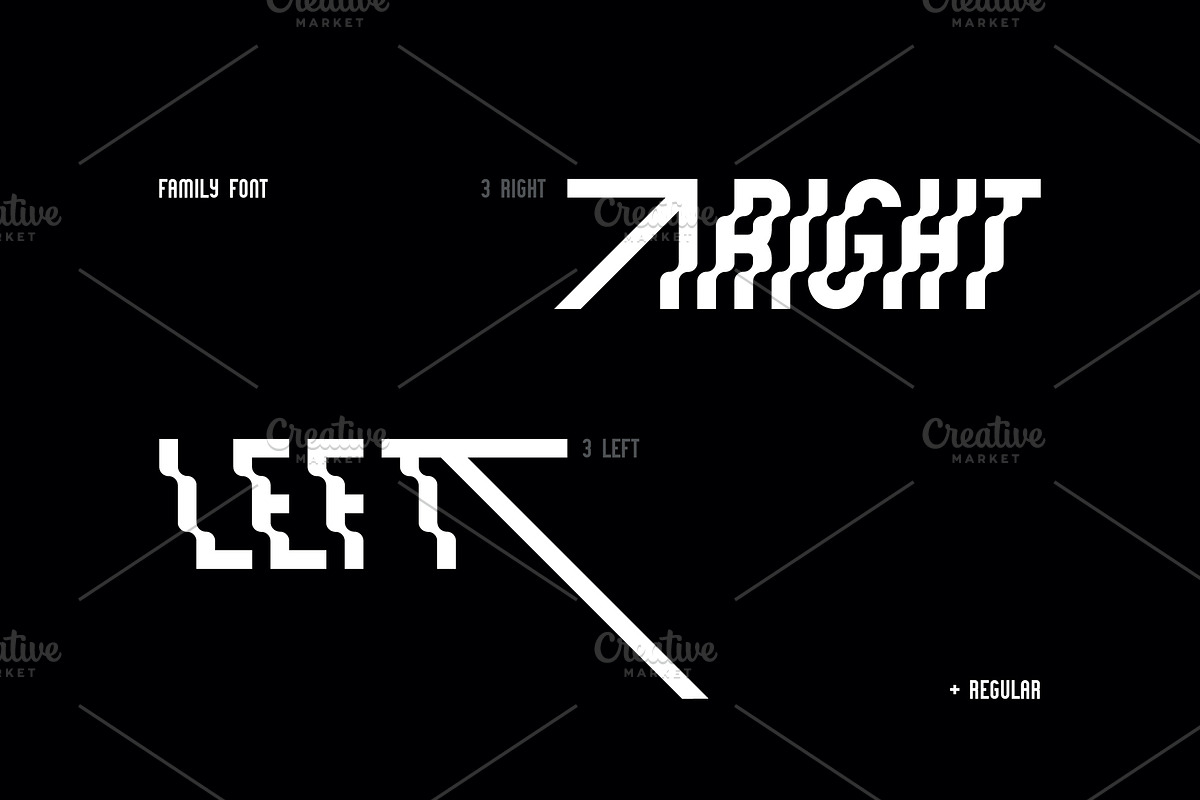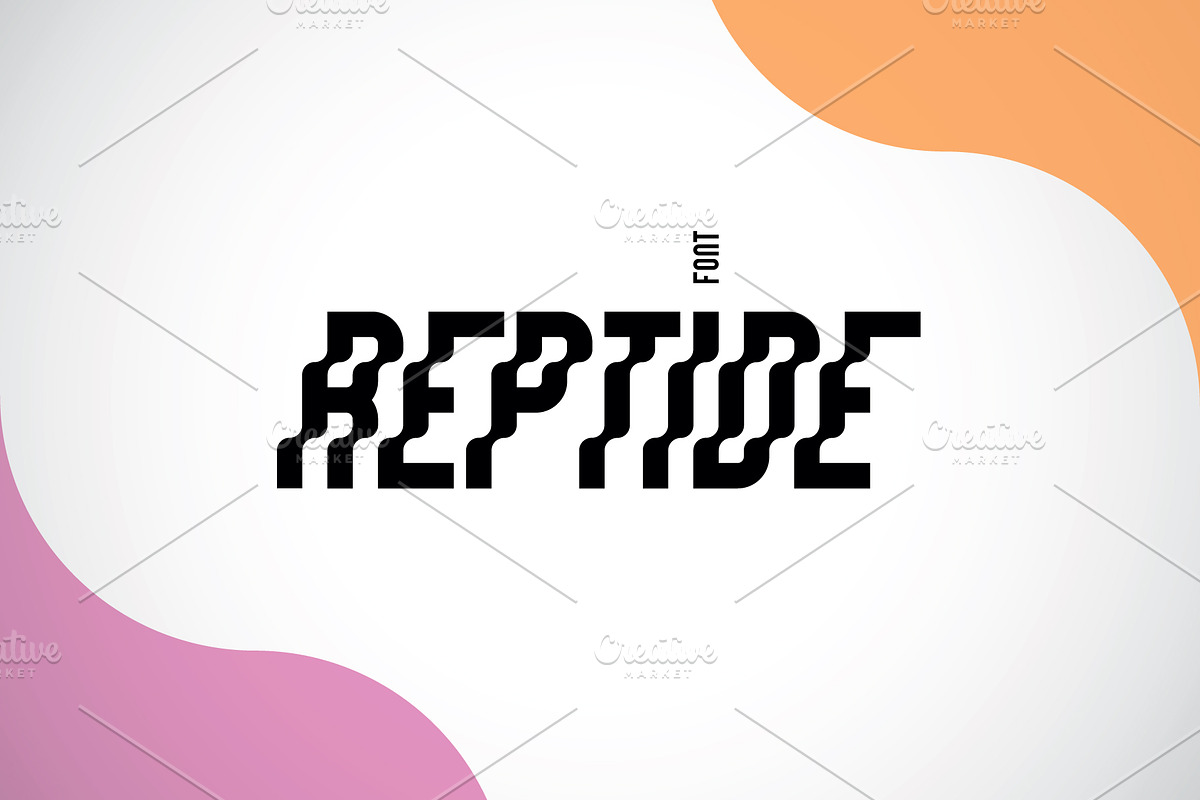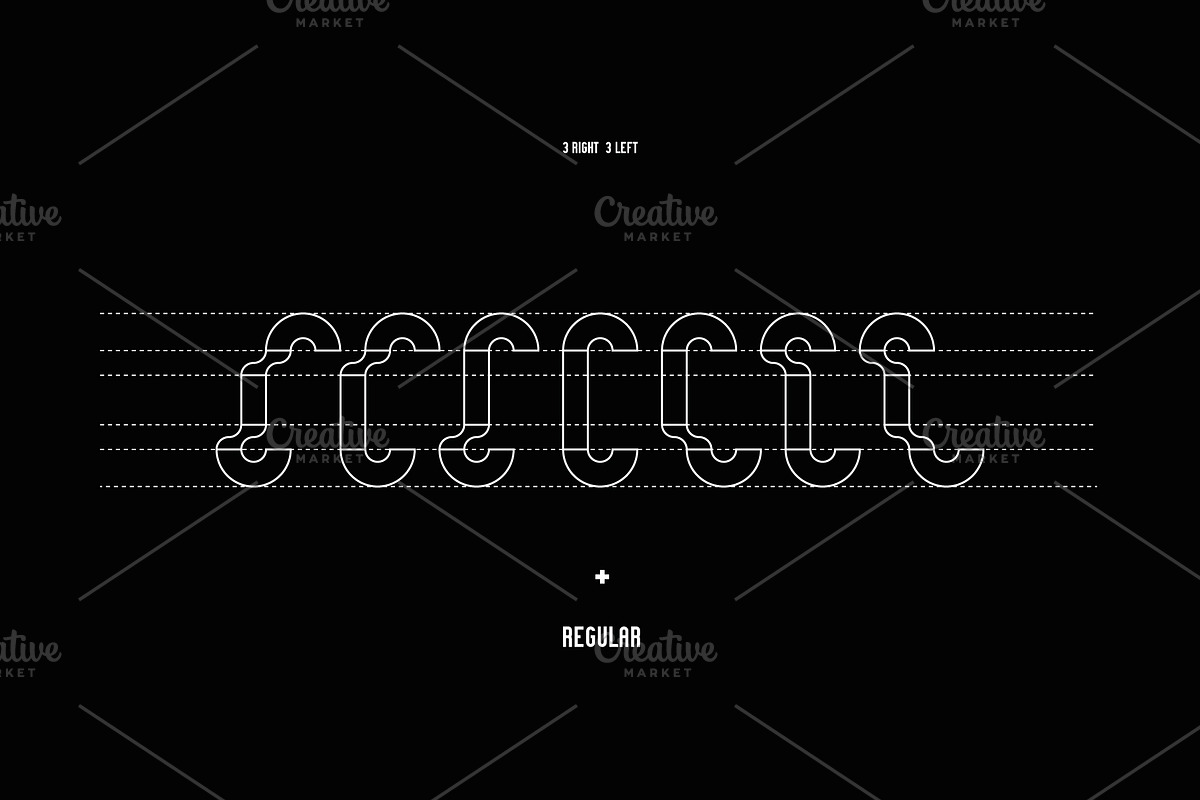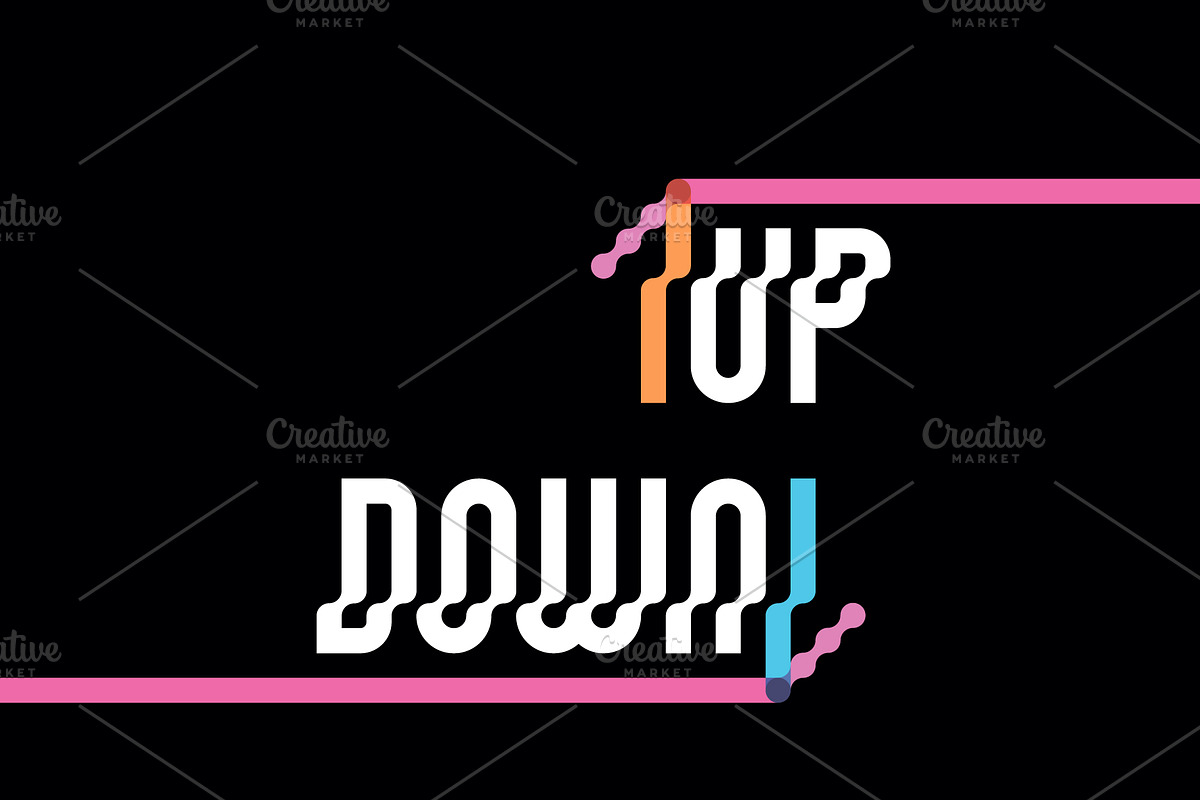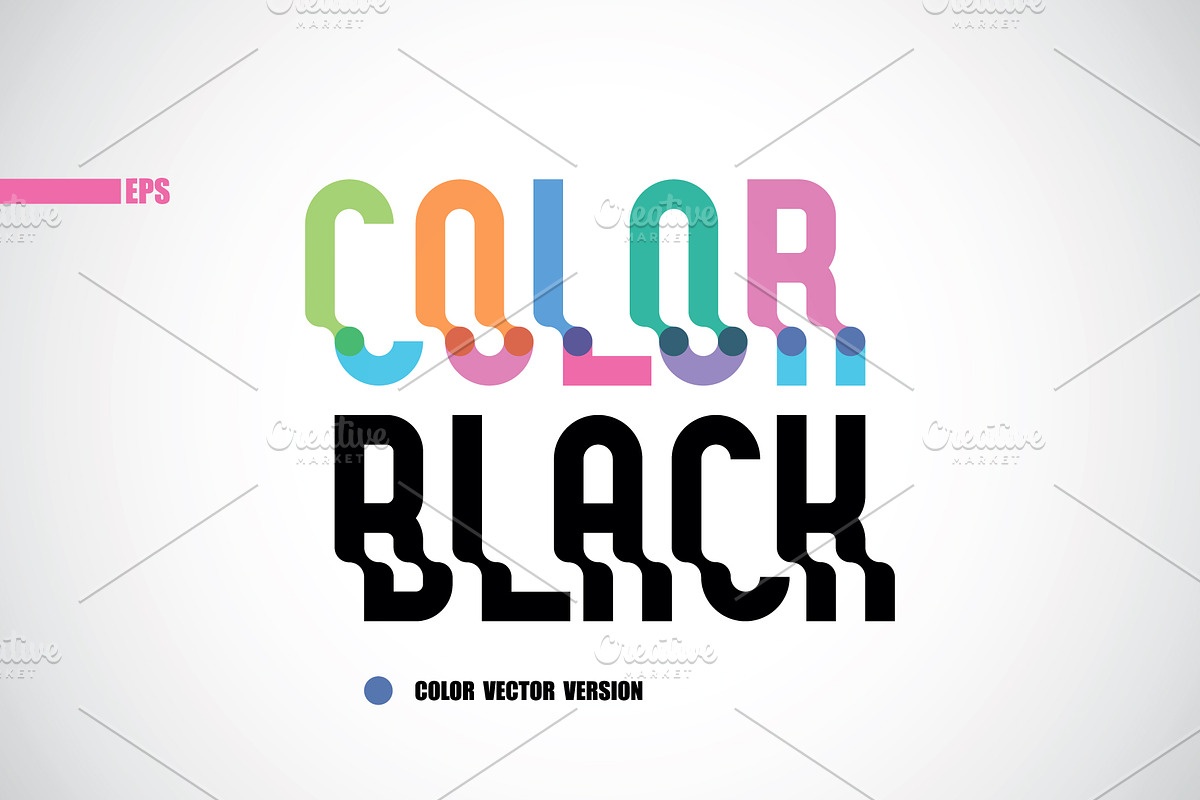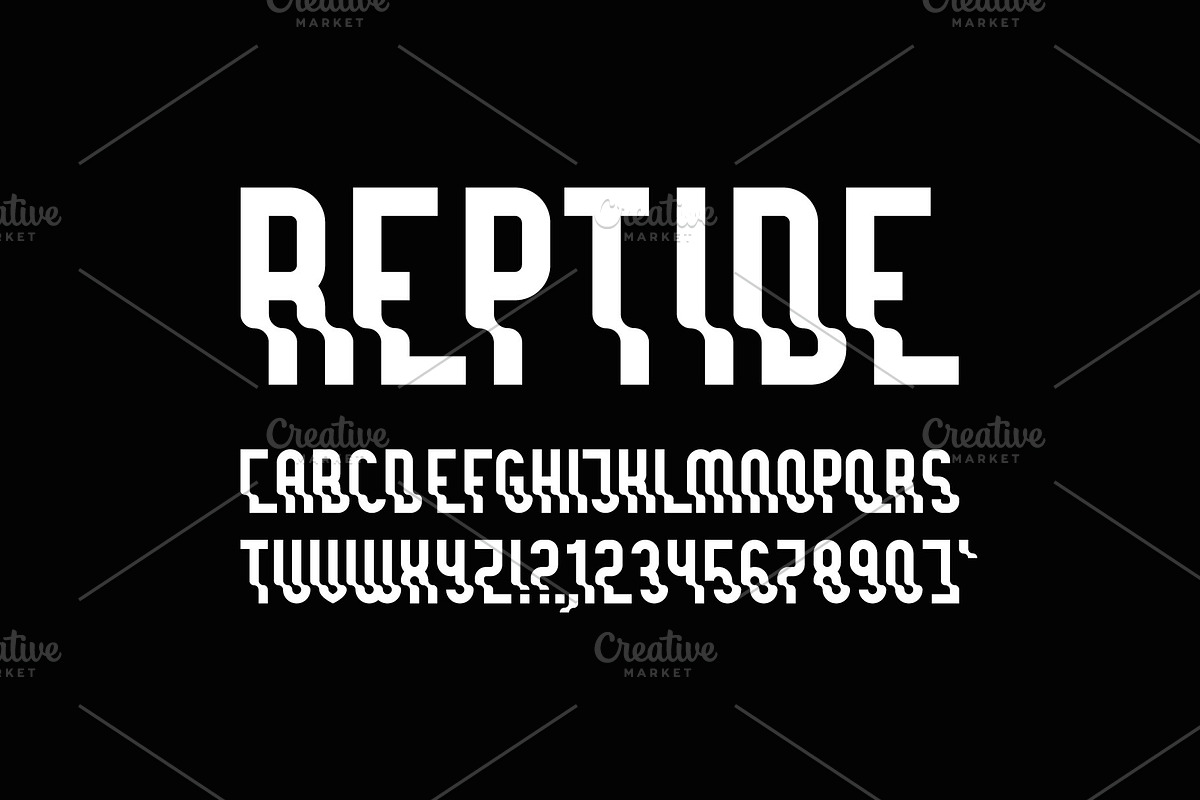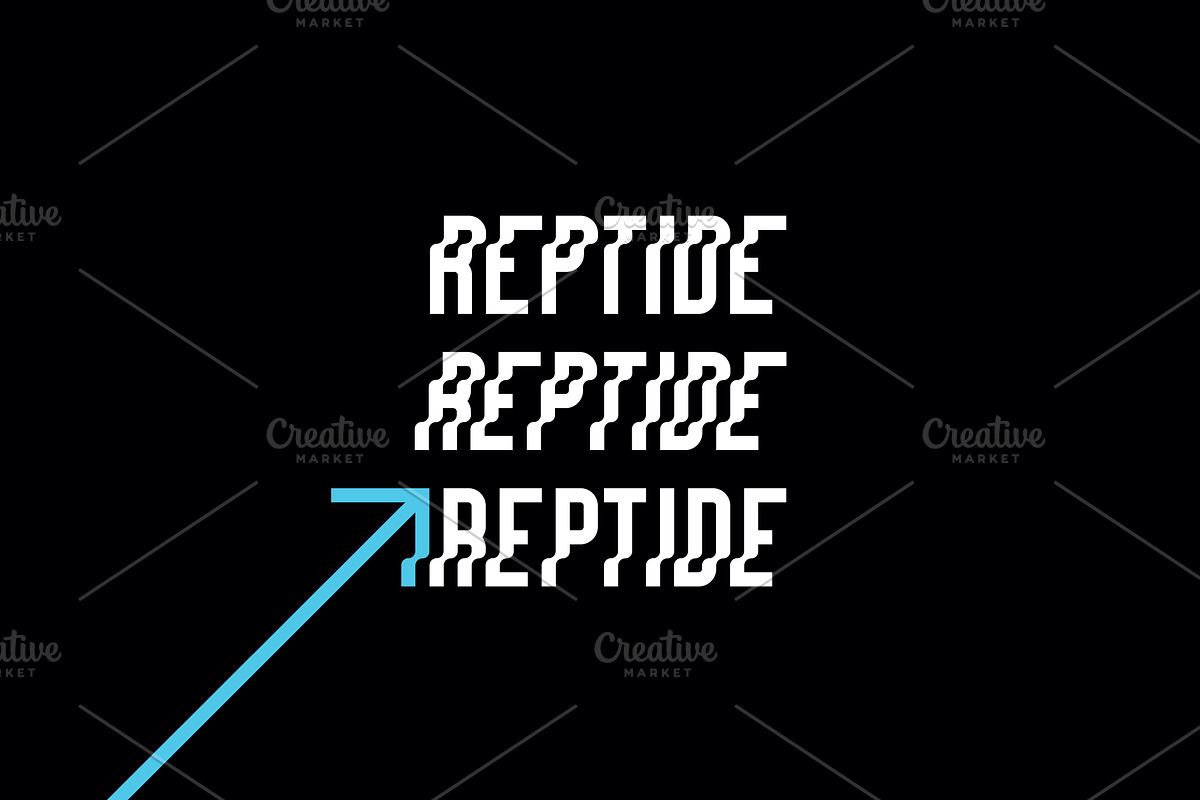
REPTIDE Family Font
Reptide is a geometric wavy typeface. Reptide includes 7 fonts : 3 rIght, 3 left and regular. Reptide works in any branding, logos, magazines, films.
It also includes 4 color vector versions with a transparency effect in EPS. You can use them to make headings with whatever color you want.
- Reptide Regular
- Reptide Left
- Reptide LeftDown
- Reptide LeftUp
- Reptide Right
- Reptide RightDown
- Reptide RightUp